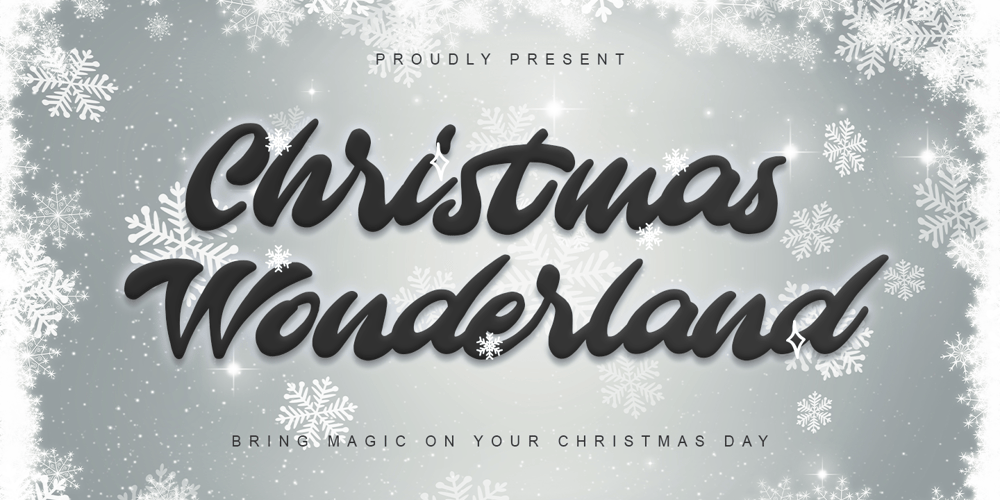
Christmas Wonderland
Christmas Wonderland font
Christmas Wonderland Font Family was designed by Thomas Aradea and published by Letterara. Christmas Wonderland contains 1 styles and family package options. Christmas Wonderland is an elegant and flowing bold script font. It is PUA encoded which means you can access all of the glyphs and swashes with ease! These alternate and swash features are also designed to be easy to use in Silhouette software. It features a varying baseline, smooth lines, gorgeous glyphs, and stunning alternates. This font will look great in any creative project such as logos, printed quotes, invitations, cards, product packaging, headers, and more! Add it to your designs and make them come alive!